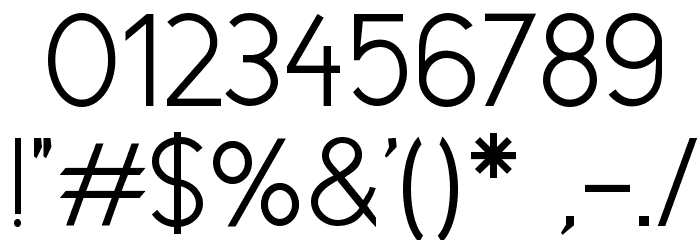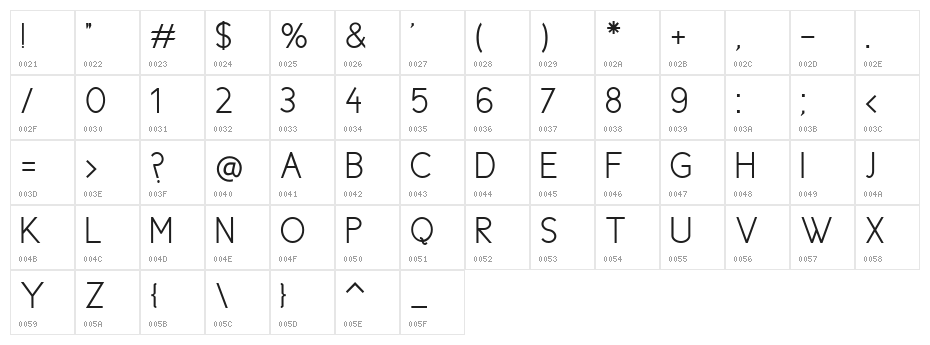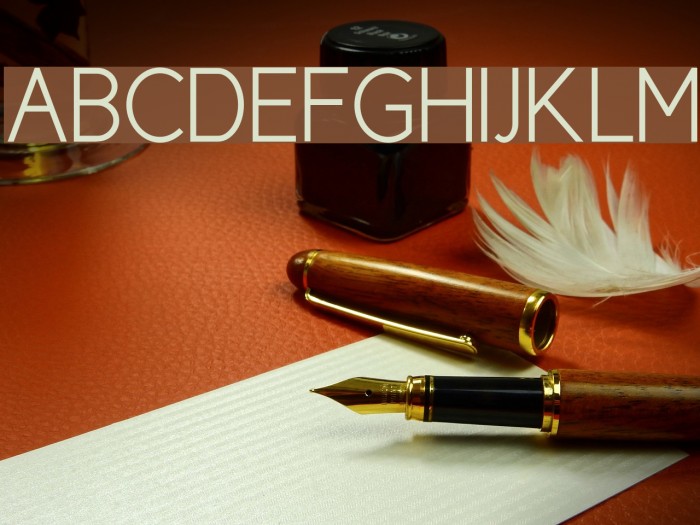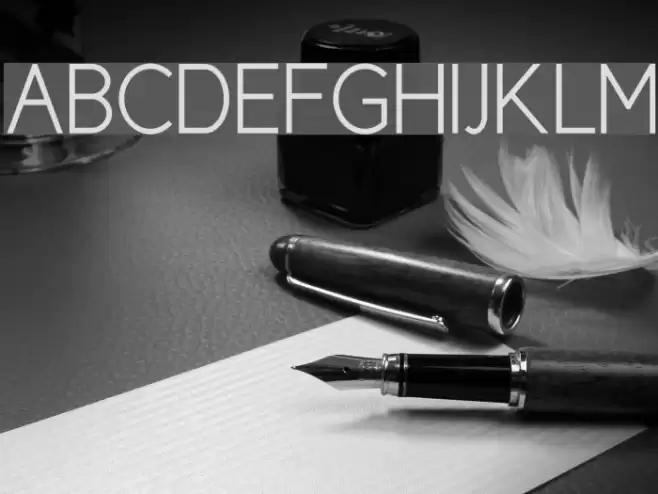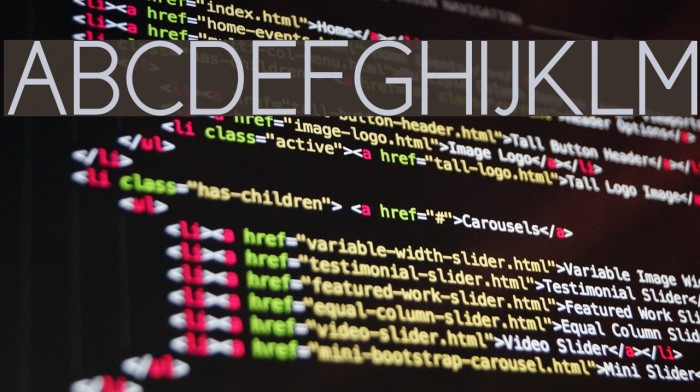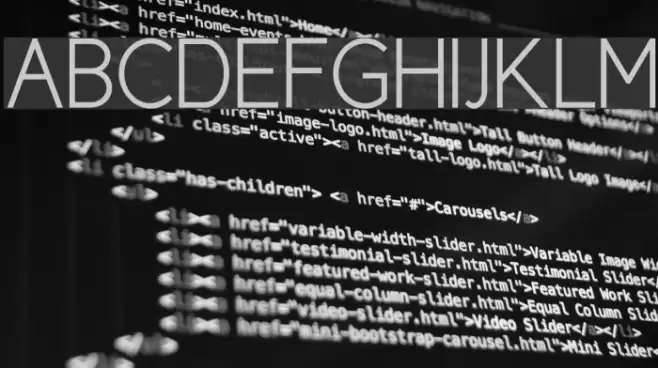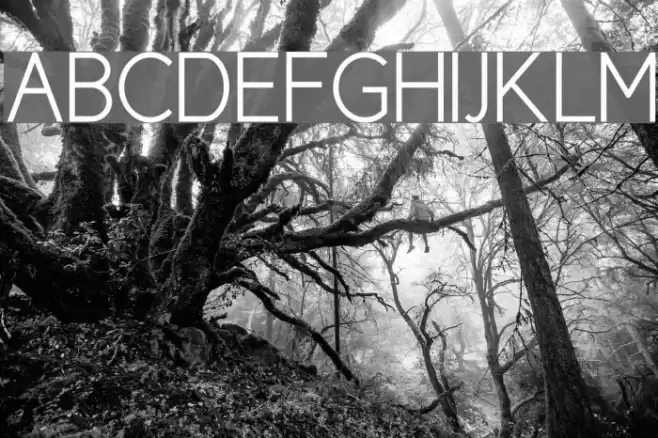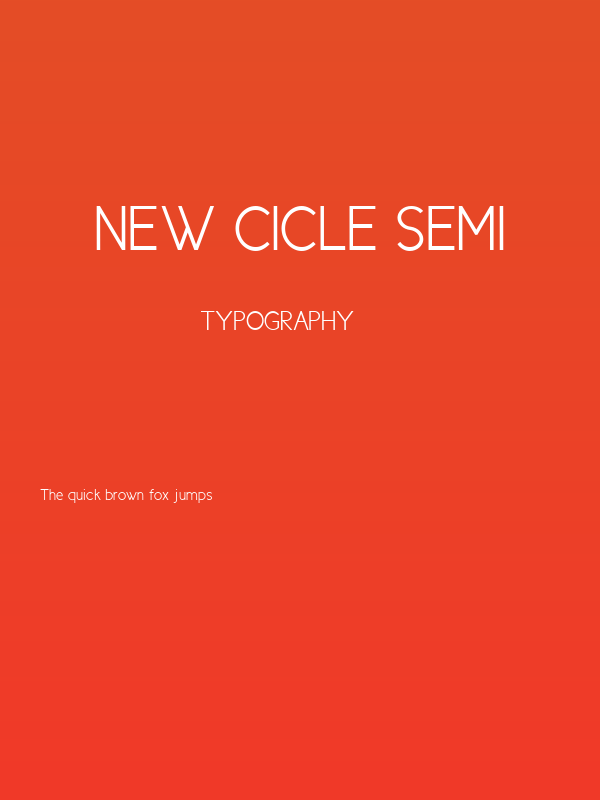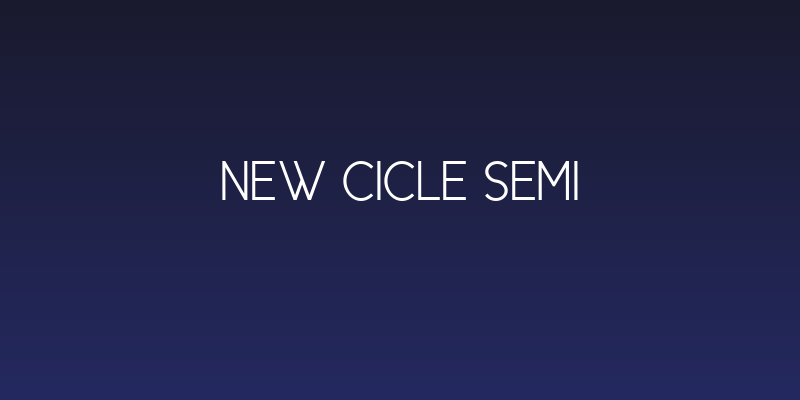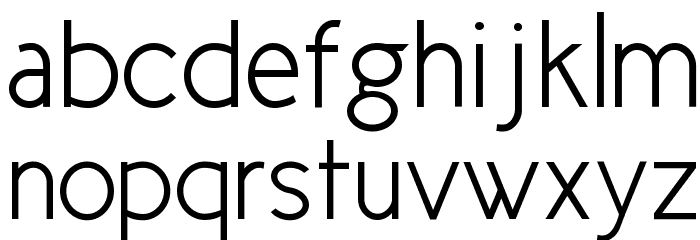
New Cicle Semi Font
New Cicle Semi Description
This font features a clean and modern sans-serif design with a geometric structure. The characters are uniform and balanced, offering a sleek and contemporary appearance. The uppercase letters are bold and assertive, while the lowercase letters maintain a consistent style that complements the overall aesthetic. The numerals are clear and easy to read, making them suitable for various applications. Special characters are well-integrated, maintaining the font's cohesive look. The overall design is versatile, making it ideal for both digital and print media.